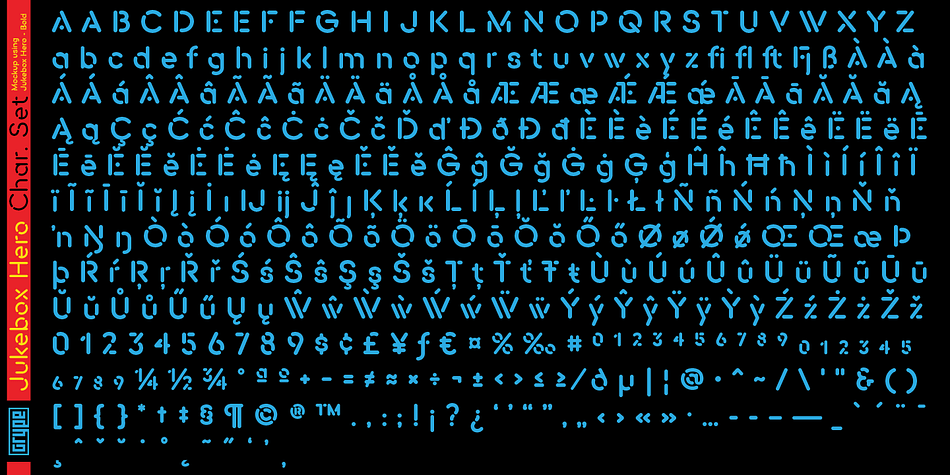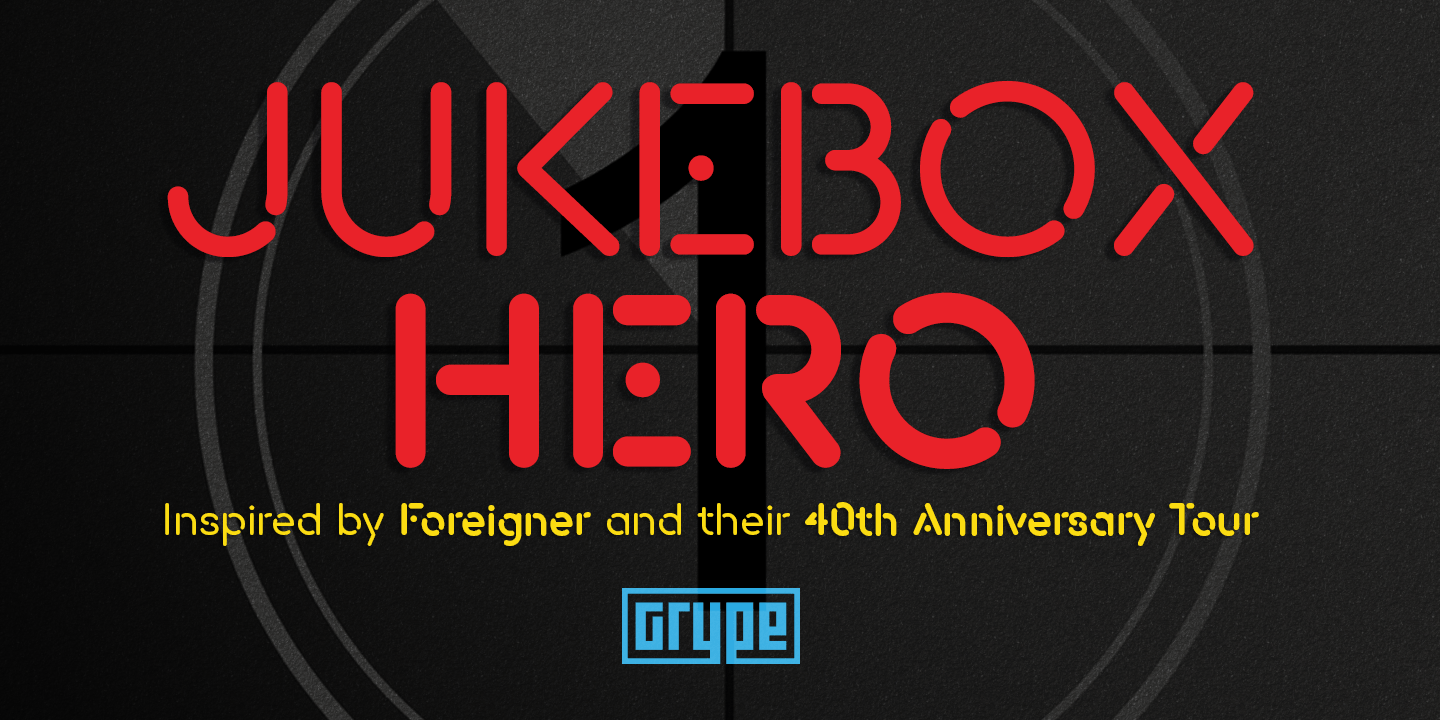
Jukebox Hero
Designed by Brian J. Bonislawsky and Jim Lyles, Jukebox Hero is a stencil font family. This typeface has two styles and was published by Grype Type.
As one of the most popular rock bands of the world, Foreigner has rocked the charts with 10 multi-platinum albums and sixteen top 30 hits in the last 40 years. But one might ask what a band this successful has been missing all these years? No head games here…a consistent typeface based on their logo is the answer.
As fans of Foreigner, we’ve taken the essence of their iconic logotype and expanded it out into a full typeface in regular and bold weights to celebrate their 40th anniversary tour.
The Jukebox Hero Family celebrates the typographic stylings of Foreigner, with the soft rounded terminals and an open geometric feel, including the unique stencil flavor of the original logo. It inherited the friendly stylings of the all Capitals logo that inspired it, and goes on to include a full standard character set with expansive international support of latin based languages, and two weights jumping from regular to a beefy bold. This family is ready to rock the charts for your designs towards that of a modern, comfortable appeal.
413 glyphs - including Capitals, Lowercase, Numerals, Punctuation and an extensive character set that covers multilingual support of latin based languages. (see the 3rd graphic for a preview of the characters included)
2 weights: Regular & Bold.
You’re looking for a stylish and sophisticated soft sans-serif stencil typeface family.
You’re looking for a Sci-fi vibe typeface that has a look that feels familiar.
Foundry Grype Type
Style Stencil
Designers Brian J. Bonislawsky, Jim Lyles